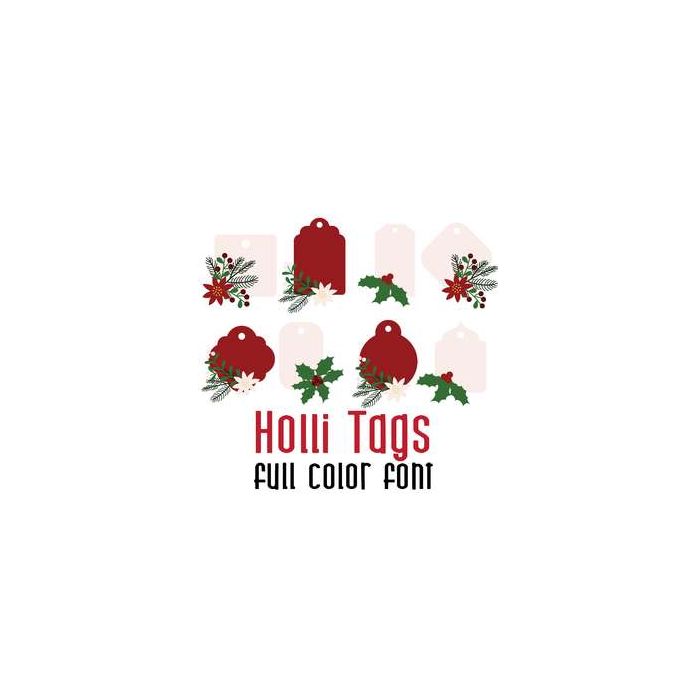
holli tags full color font
A full-color font stores svg data inside an Open Type font file. This font will look black if not used in a program like Silhouette Studio which is compatible. Images can be pulled apart and cut with your cutting machine. This adorable full color doodlebat font features beautiful holly themed Christmas tags. Perfect for cards, crafts, gifts, decor, scrap book pages, planner stickers and more!